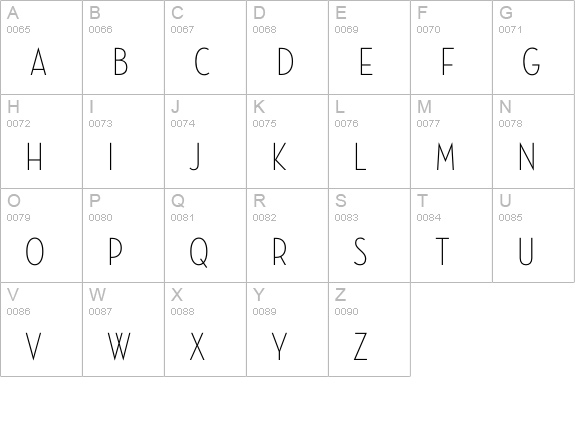
Neutraface Condensed Light Alt is a refined, elegant, condensed-width variant in the Neutraface typeface family \xE2\x80\x94 well suited to elegant body text, refined sub-headings, and luxury branding.
Neutraface Condensed Light Alt font is a sleek and modern typeface that exudes elegance and sophistication. Its clean lines and minimalist design make it perfect for a wide range of design projects, from branding to editorial layouts. With its condensed form, this font is ideal for creating a bold statement while maintaining readability. What sets Neutraface Condensed Light Alt font apart is its versatility and adaptability to various design contexts. Whether you are working on a corporate presentation, a fashion magazine layout, or a sleek website design, this font will effortlessly elevate your project with its timeless aesthetic. Best of all, Neutraface Condensed Light Alt font is freely available to download at FontsMarket.com. So you can easily access this premium font without any cost, making it a valuable addition to your font library. Upgrade your designs with Neutraface Condensed Light Alt font and make a lasting impression with its refined appeal.